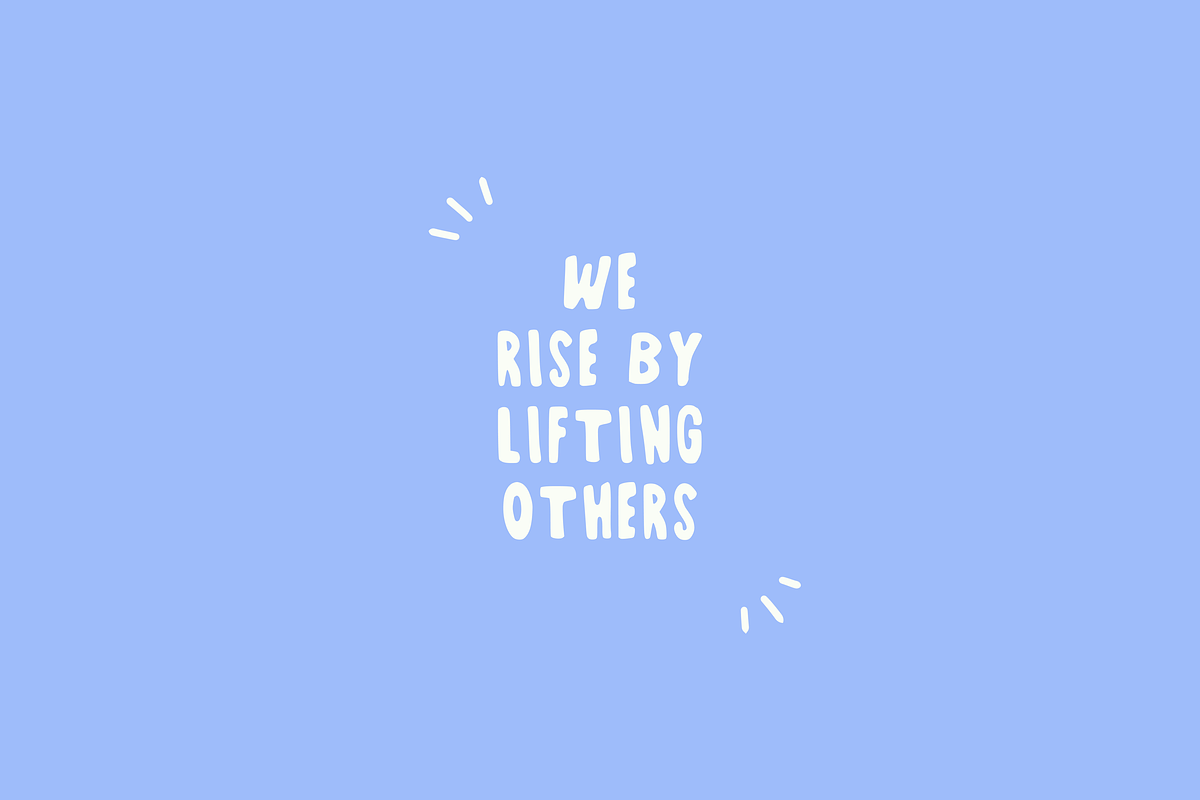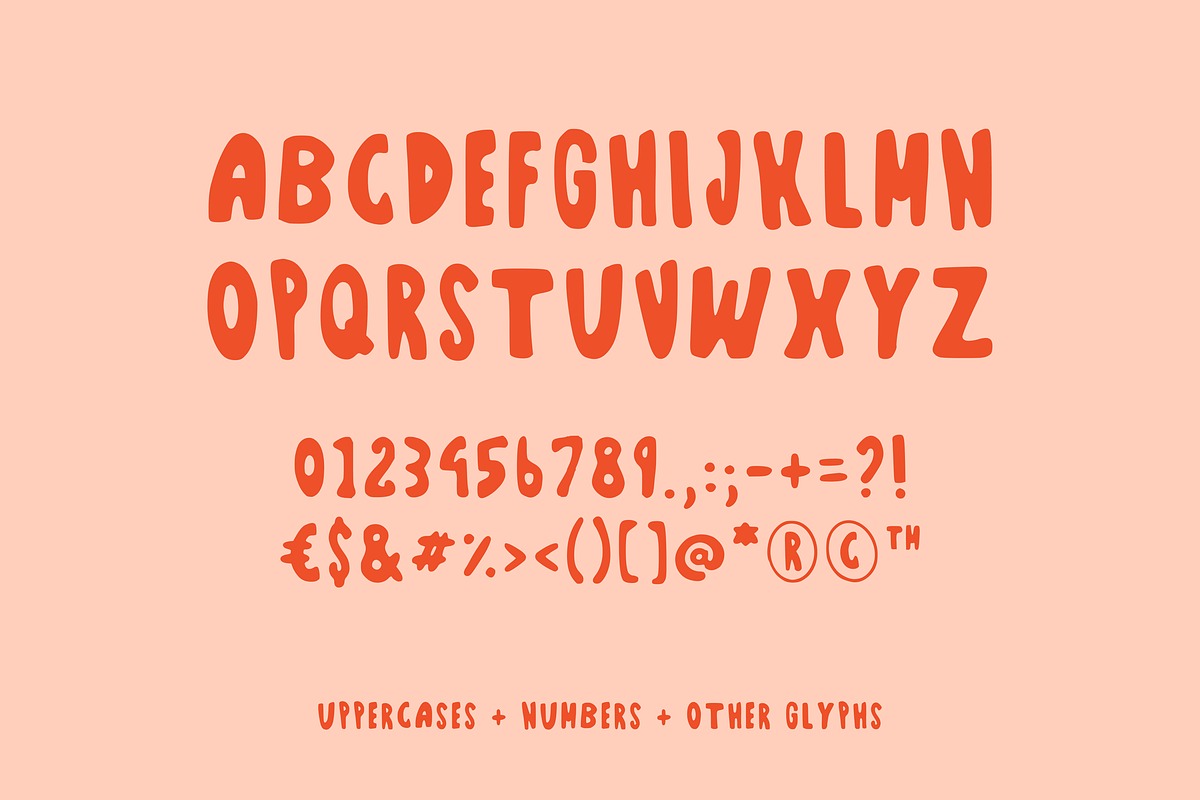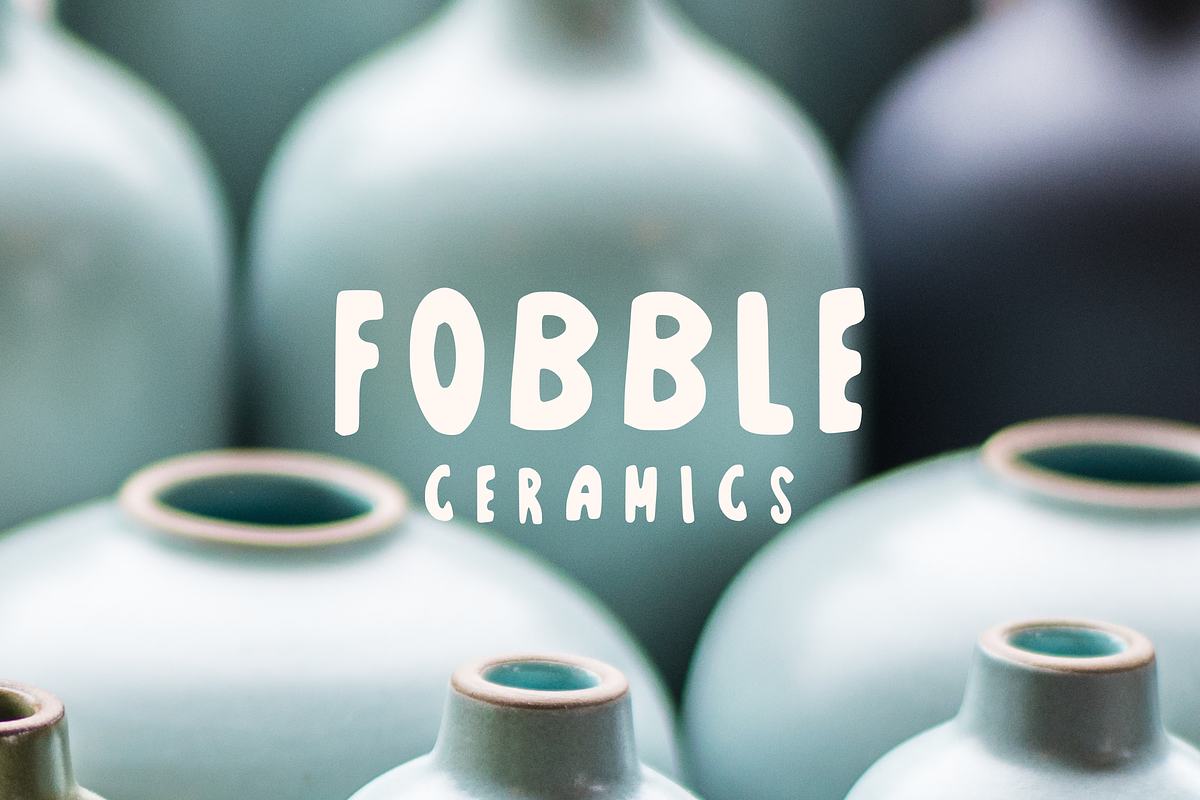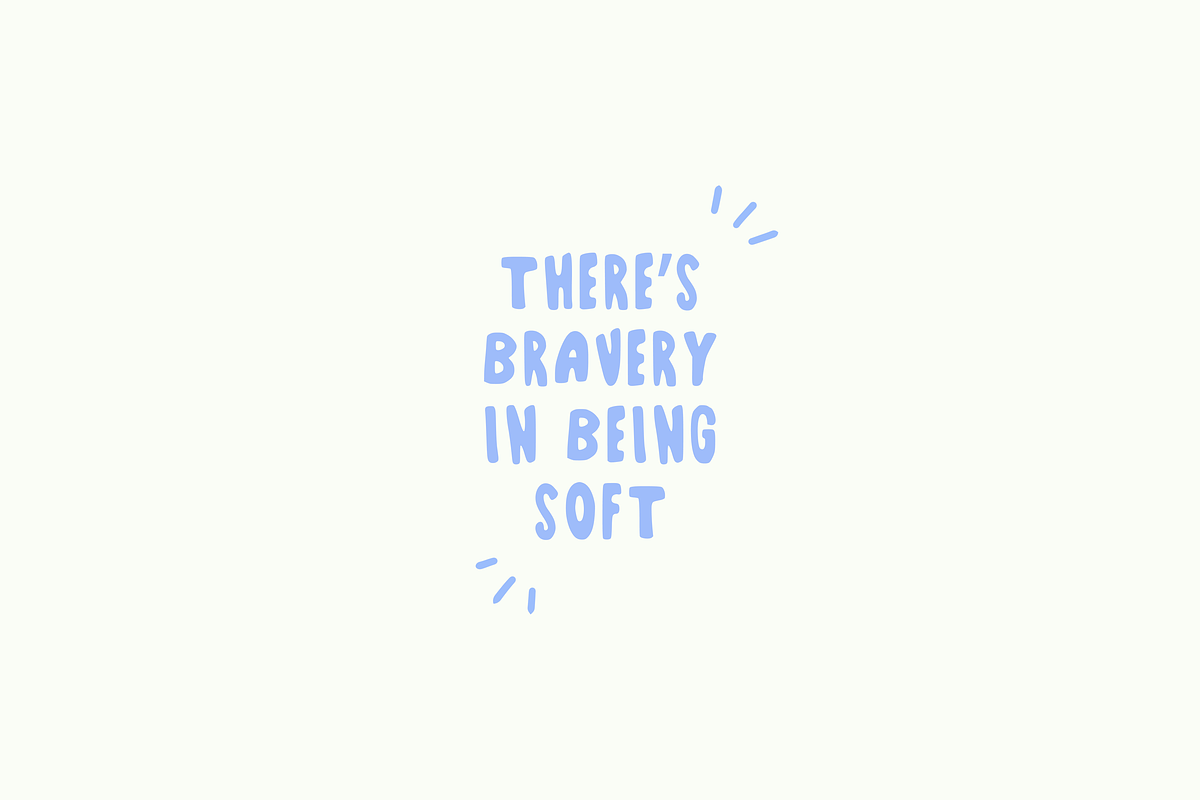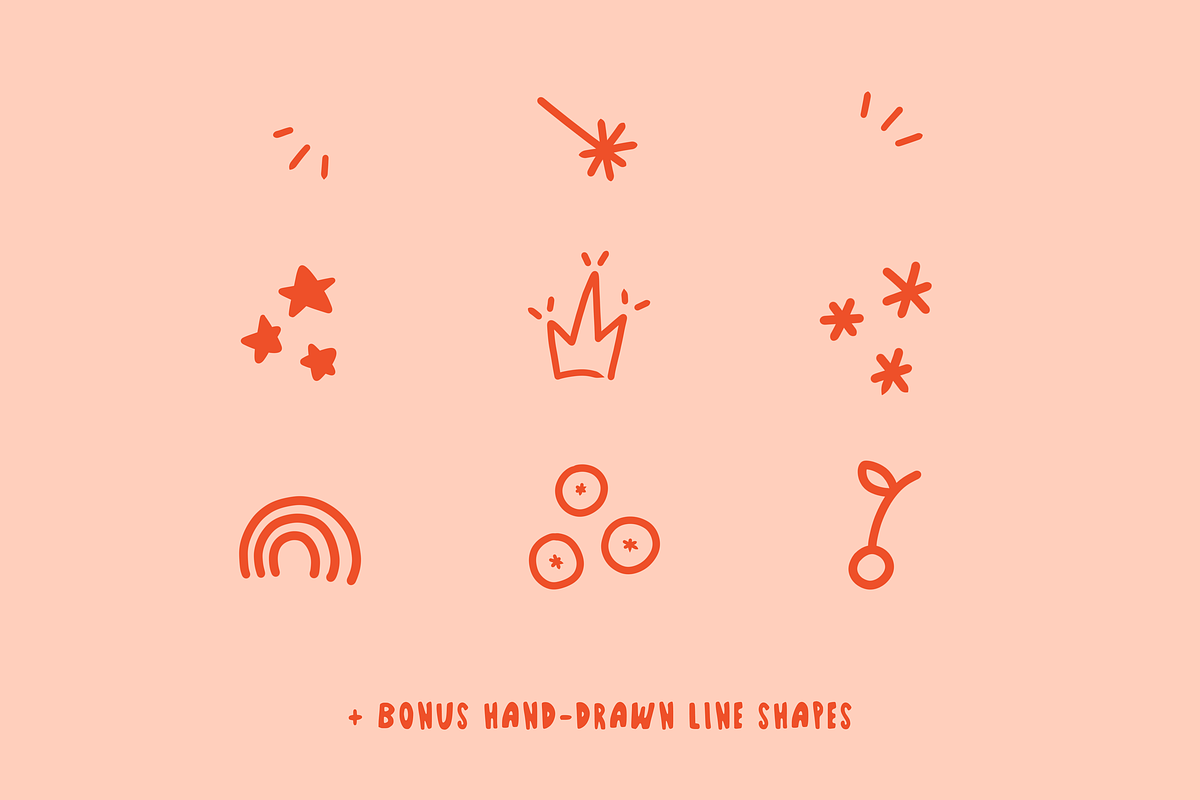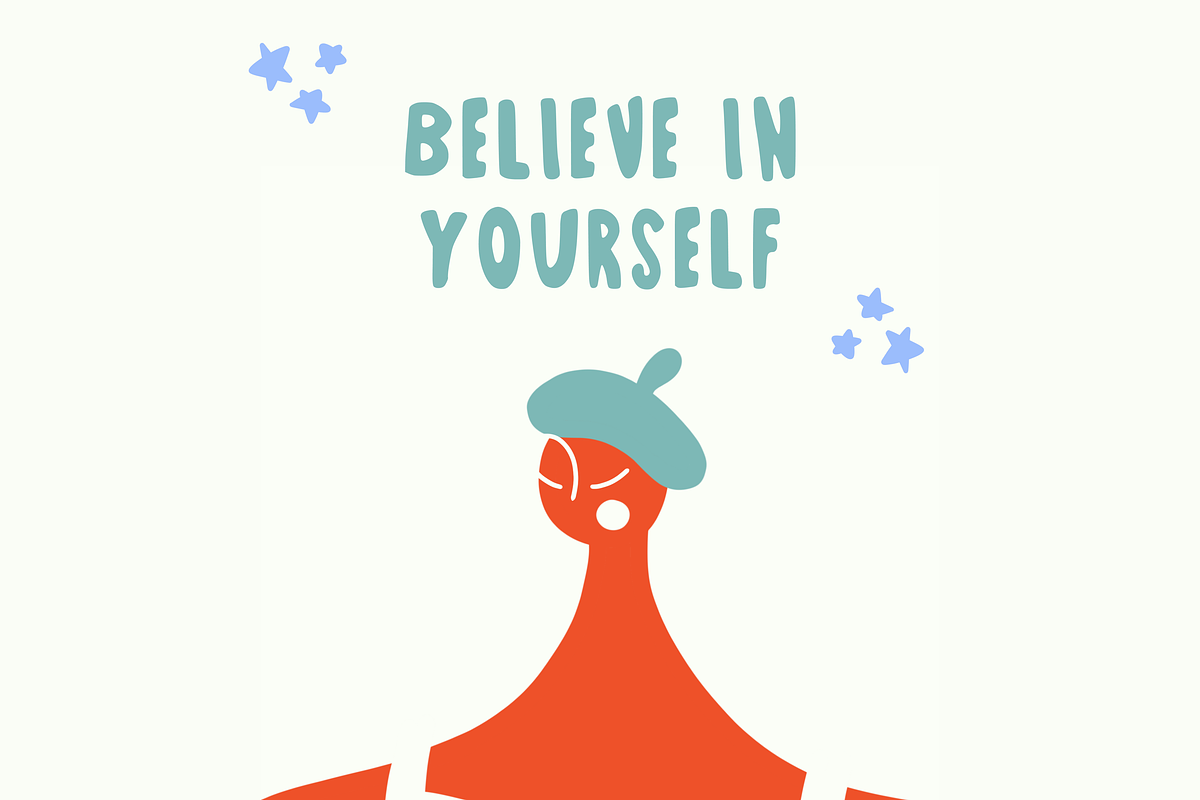
Fobble | Playful Funky Font + Extras
Fobble is a unique hand-drawn bold, playful font!
Each letter has been carefully crafted by hand.
+EXTRA 9 hand-drawn line shapes!
This display typeface is perfect for: